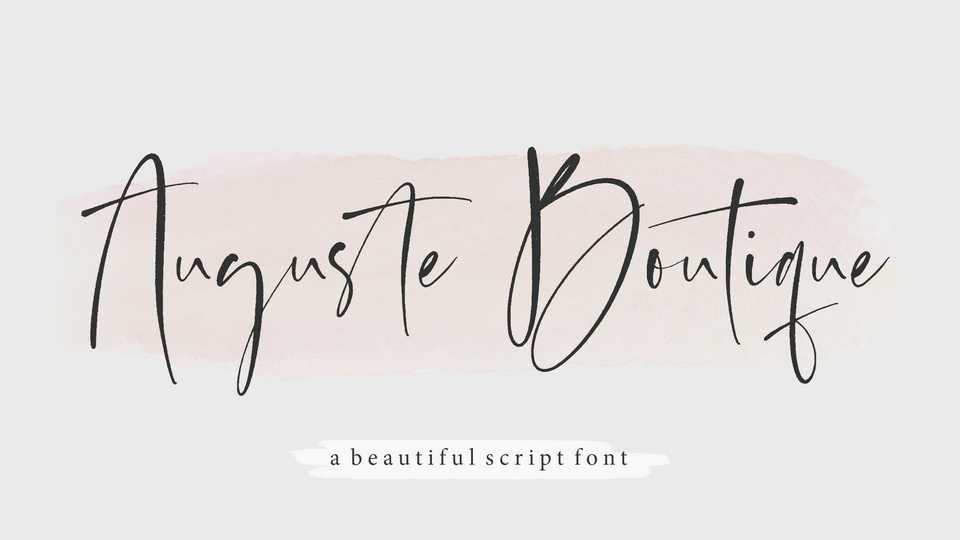
Download Auguste Boutique font, a dazzling signature style script typeface. Whatever the topic, Auguste Boutique font will be a wonderful asset to your font library, as it has the potential to enhance any creation.
Designer: Balpirick Studio